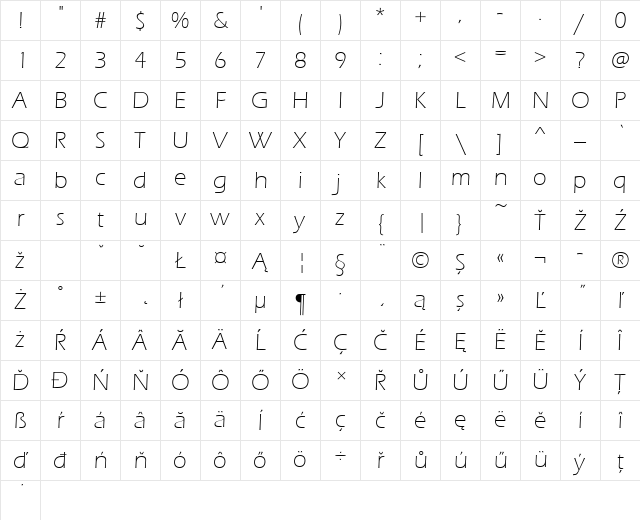
ErasItcTEELig Regular
Year: 1996 (Tue, 12th Nov 1996)
Design Context for ErasItcTEELig
ErasItcTEELig is a composed and adaptable typeface that performs quietly and consistently across a wide range of design contexts.
Pro Tip: Use ErasItcTEELig in both headline and body roles to test its range before committing to a single application.